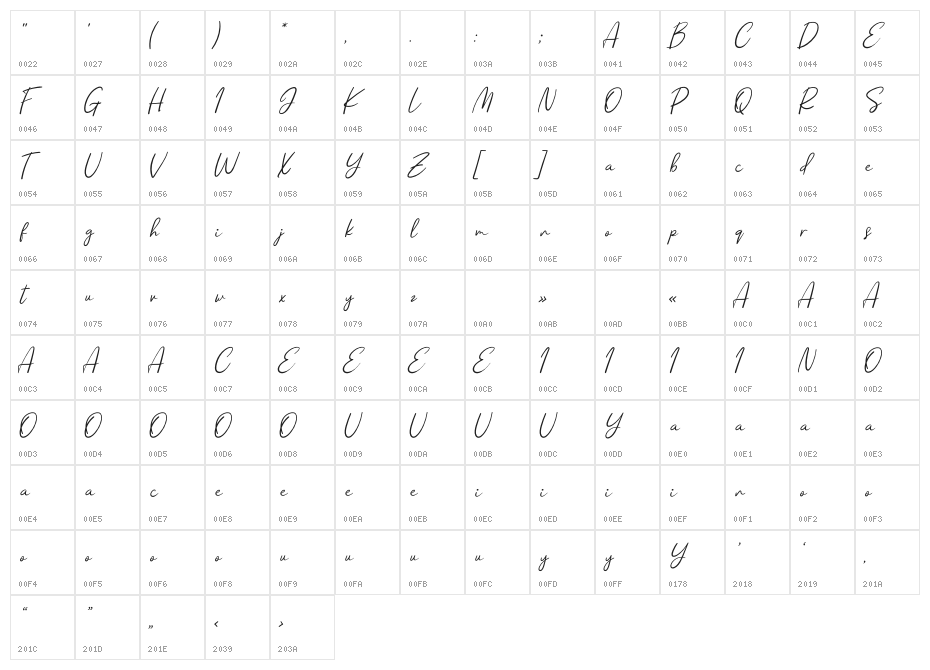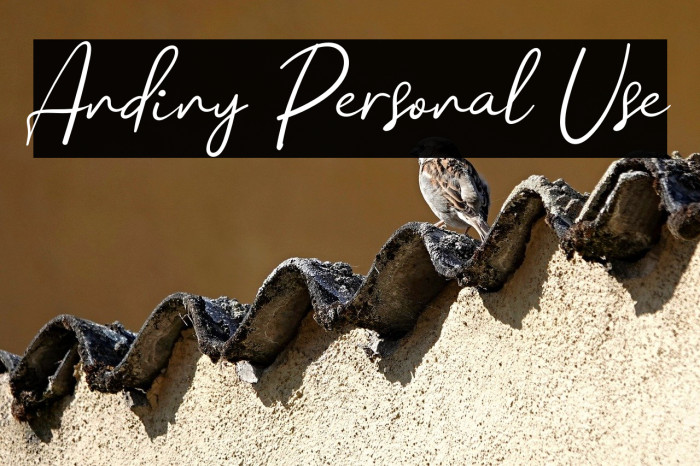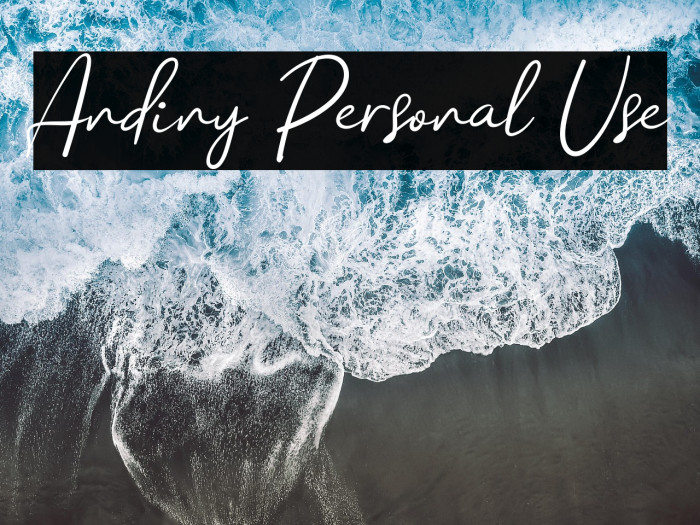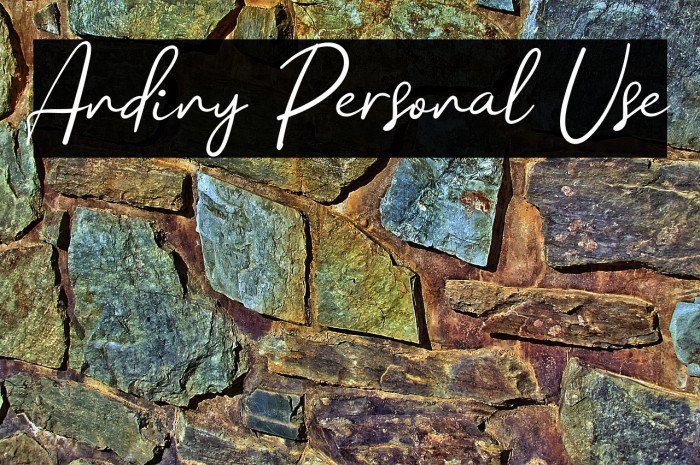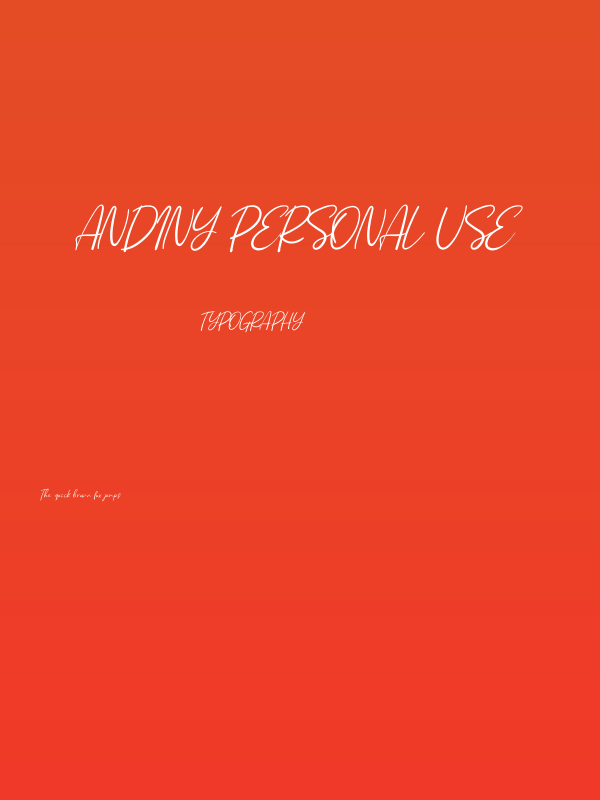
Andiny Personal Use Font
Andiny Personal Use Description
This font features an elegant, flowing script style with a handwritten appearance. The uppercase letters are tall and slightly slanted, giving a sense of movement and grace. The lowercase letters maintain a consistent flow, with smooth curves and loops that enhance its cursive nature. The font exudes a personal and artistic touch, making it suitable for creative and expressive designs. The characters are well-spaced, ensuring readability while maintaining the font's decorative appeal. The overall style is modern yet timeless, perfect for adding a touch of sophistication to any project.
| Use Case | Logos, Headlines, Decorative text |
| Proposed Projects | Ideal for wedding invitations, greeting cards, personal branding, and artistic projects. |